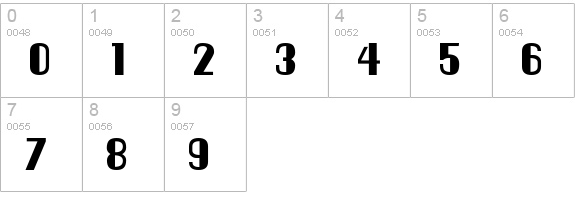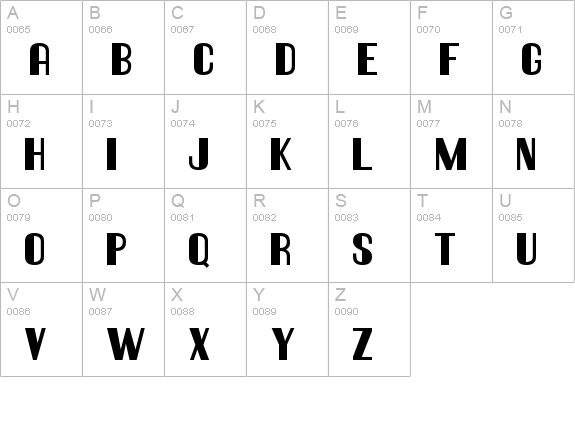
Introducing the captivating and timeless beauty of Hallandale Deco JL font. This exquisite typeface effortlessly combines the elegance of Art Deco with a modern twist, making it the perfect choice for any design project that requires a touch of sophistication. Hallandale Deco JL font features clean lines, sharp angles, and intricate geometric shapes that exude a sense of luxury and refinement. Its bold and confident letterforms command attention and add a touch of glamour to any text. Whether used for headlines, logos, or branding materials, this font will surely make a lasting impression. What sets Hallandale Deco JL font apart is its versatility. It seamlessly blends into a variety of design styles, from vintage-inspired layouts to contemporary designs. Its timeless appeal ensures that it remains relevant and eye-catching for years to come. And the best part? Hallandale Deco JL font is free to download at FontsMarket.com. Yes, you read that right! This stunning font is readily available for you to use in your personal and commercial projects without any cost. So, unleash your creativity and elevate your designs with this exceptional typeface. Download Hallandale Deco JL font today and experience the beauty and elegance it brings to your typography. With its free availability on FontsMarket.com, there's no reason not to add this remarkable font to your collection. Embrace the charm of Art Deco and let your designs shine with Hallandale Deco JL font.